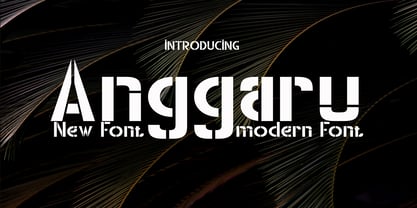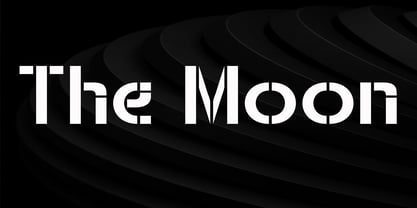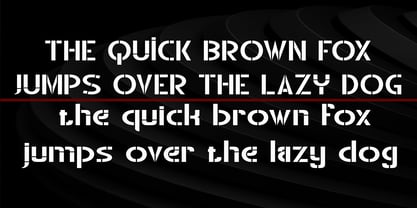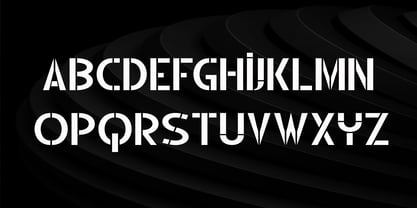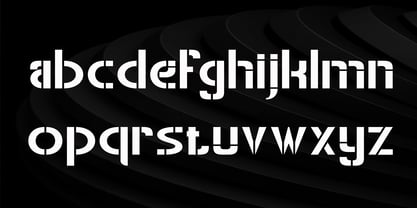
Anggaru
Anggaru is a bold and stylish condensed sans serif font, blending retro aesthetics with modern minimalism. Designed with uppercase and lowercase characters, Anggaru features strict proportions, clean lines, and striking curves, giving your designs a bold personality.
This font is perfect for posters, logo designs, editorial titles, album covers, fashion branding, and display titles, attracting attention with a distinctive touch.